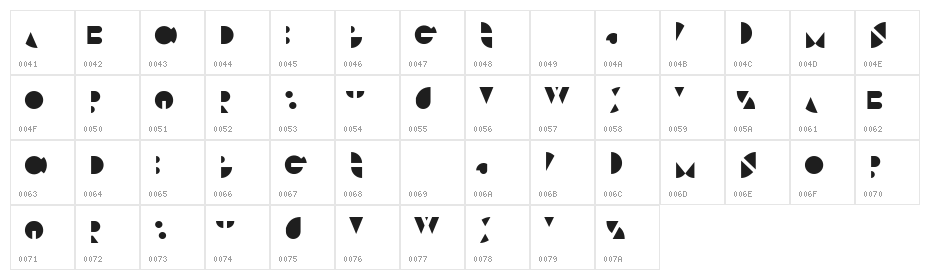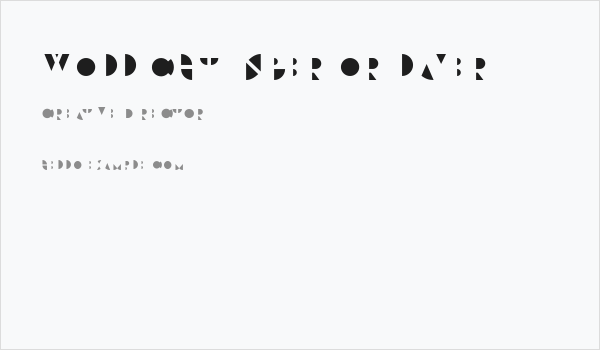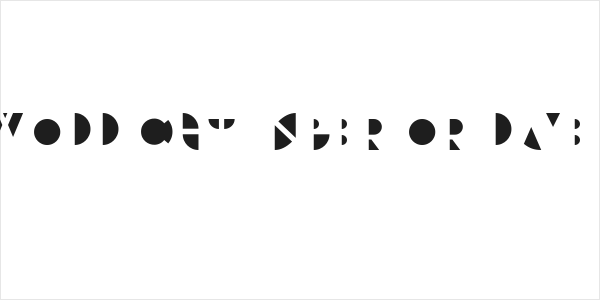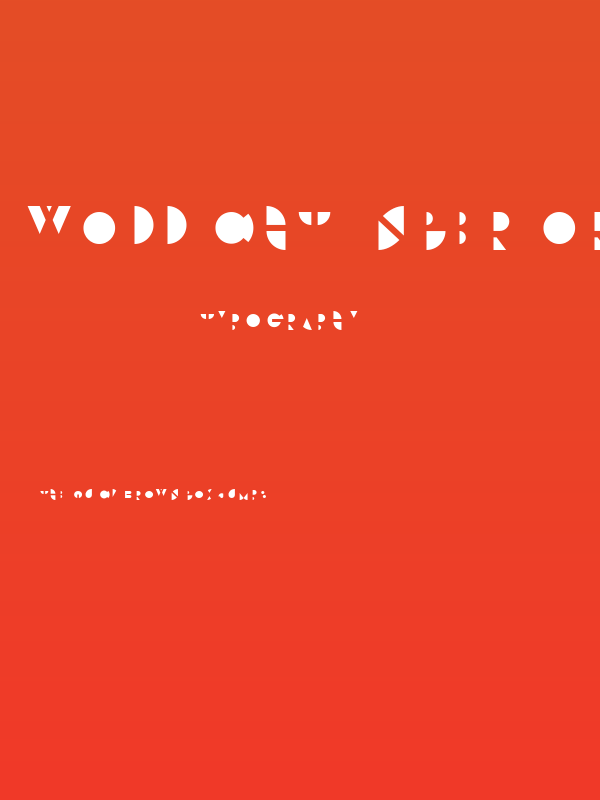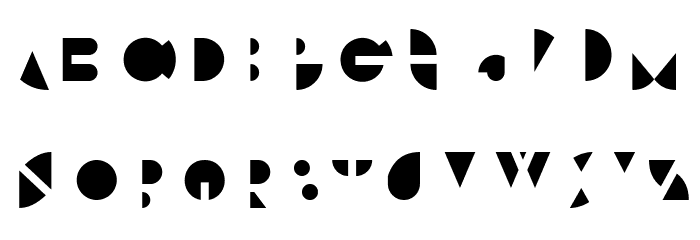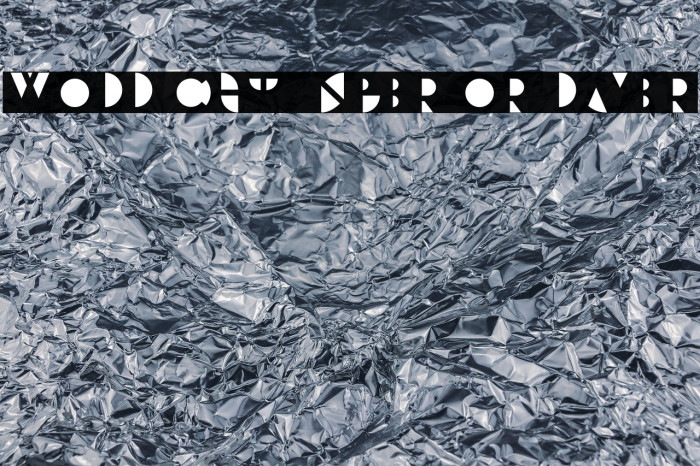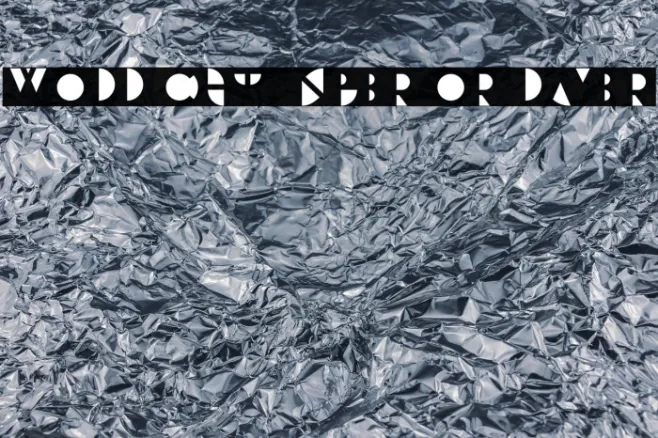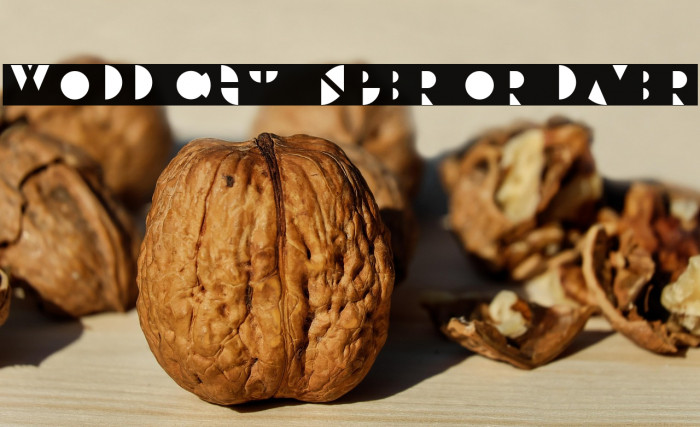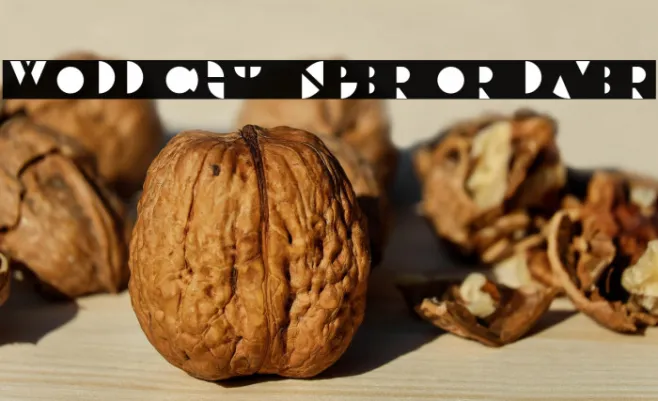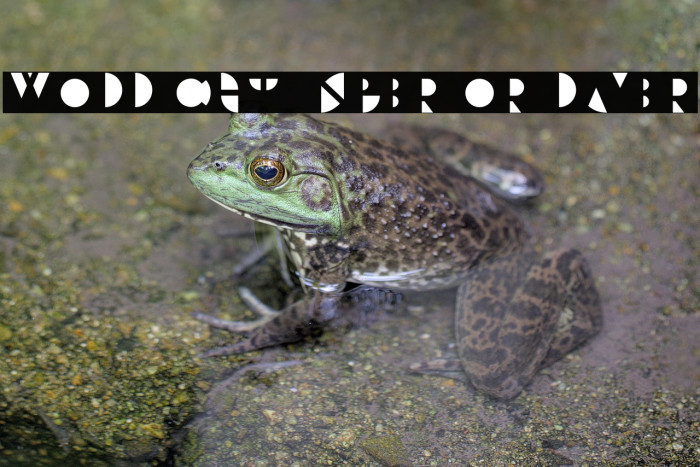
Wollicht Inferior Layer Font
Wollicht Inferior Layer Description
This font features a highly geometric and abstract design, with each character composed of bold, solid shapes that create a fragmented appearance. The letters are constructed using a combination of circles, triangles, and rectangles, resulting in a unique and modern aesthetic. The font lacks traditional curves and serifs, instead opting for a more angular and modular approach. This design choice gives it a futuristic and avant-garde feel, making it stand out in any visual composition. The characters are evenly spaced, maintaining a consistent rhythm across the typeface. The high contrast between the thick, solid shapes and the negative space enhances its visual impact, making it ideal for attention-grabbing headlines or artistic projects.
| Proposed Projects | Ideal for modern art projects, futuristic branding, avant-garde posters, and experimental designs. |